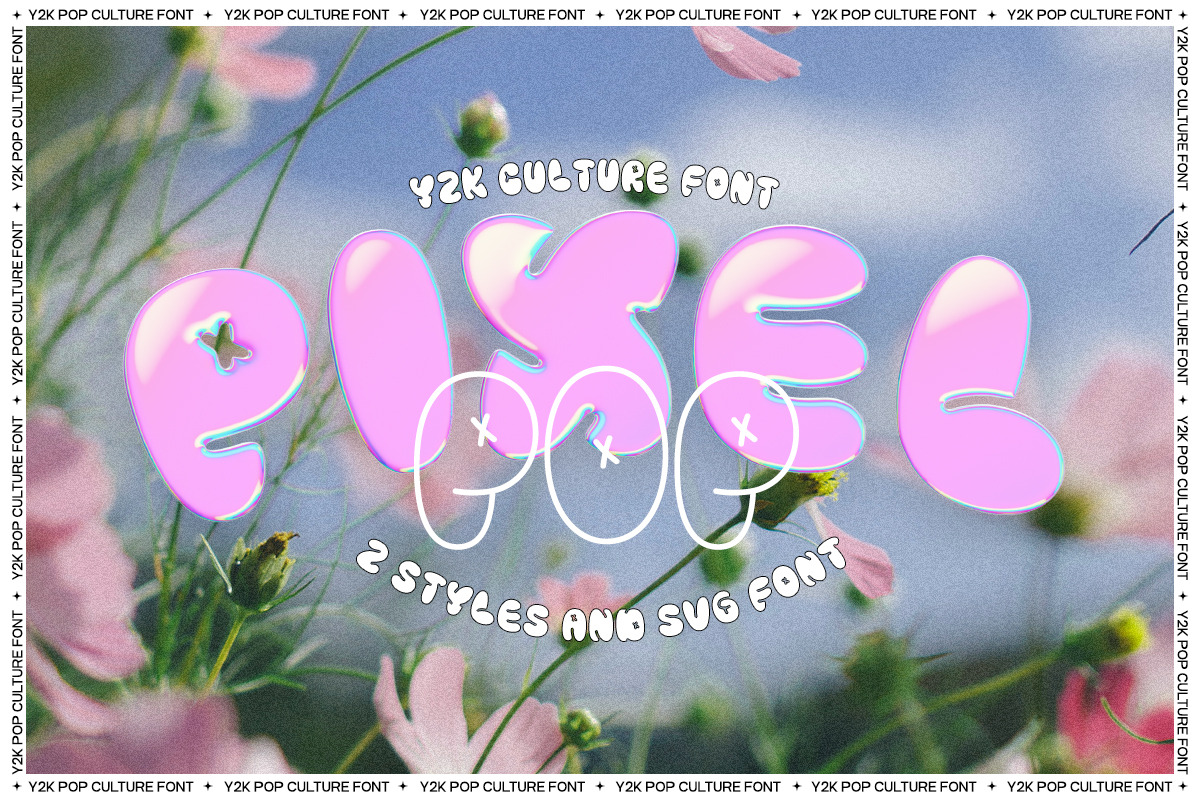
Introducing PixelPop, the ultimate font for all your Y2K design needs! With its pixelated aesthetic and bubble-inspired curves, PixelPop captures the retro-futuristic vibe of the turn of the millennium. Perfect for logos, headlines, or any other design element that needs a touch of Y2K flair, PixelPop is a versatile and eye-catching font that will make your work stand out.